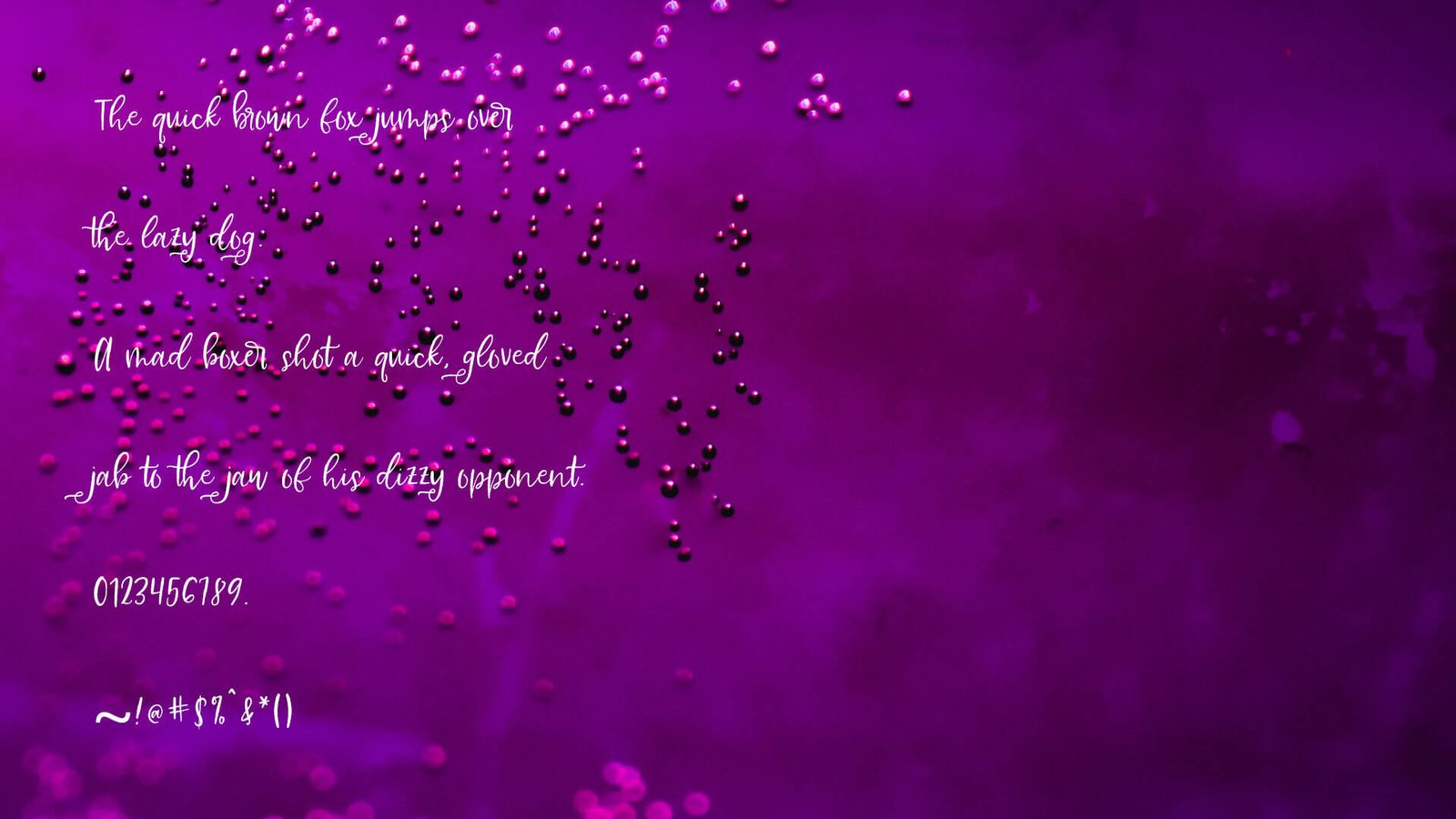
Let we are introducing the very amazing typeface that has a clear texture and appearance named Farmhouse Country Rustic Script font.
Farmhouse Country Rustic Script Font Family
| Name | Farmhouse Country Rustic Script |
| Designer | BeckMcCormick |
This font has a stunning structure that can perfect the duo for your shabby chic font requirements. This font has come with Bold, Italic, Uppercase, Lowercase, common-place, and skinny styles, and I believe that this font is very unique for you.